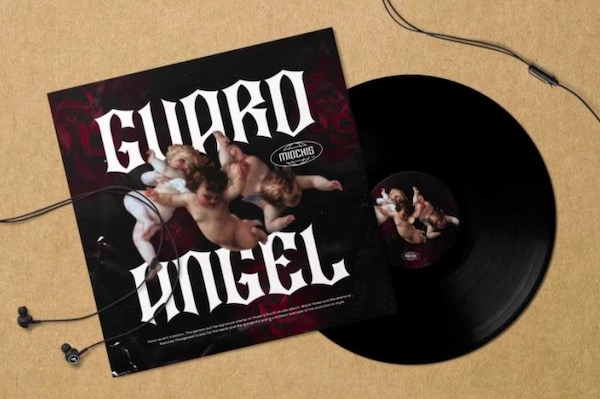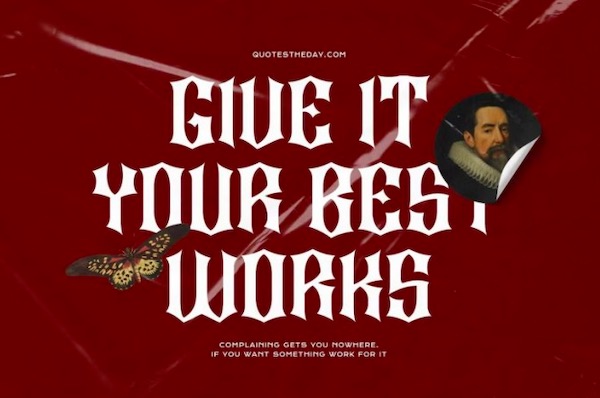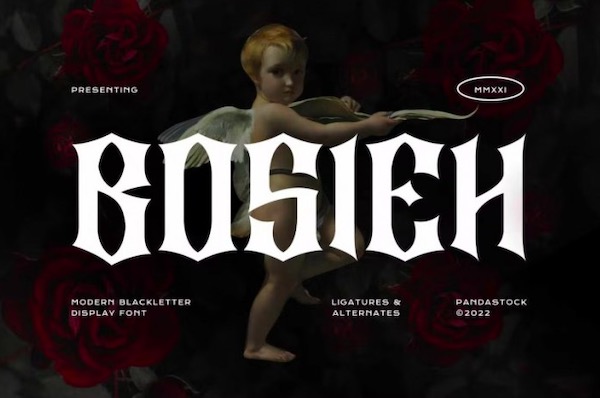
Bosieh Font is an elegant modern vintage Blackletter typeface. It looks visual, clean, and simple with smooth curves and beautiful ligatures. It’s a very versatile font that works in both large and small sizes. This font is suitable for a wide variety of projects such as invitations, logos, labels, branding projects, magazines, creative designs, product packaging, mugs, quotes, posters, and more.
Bosieh Blackletter Font